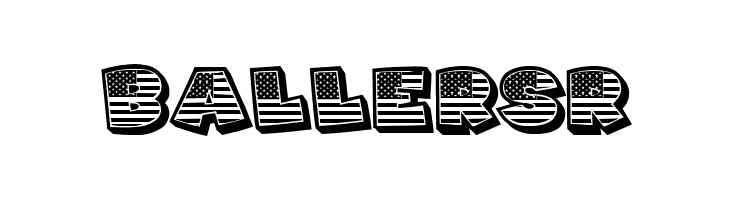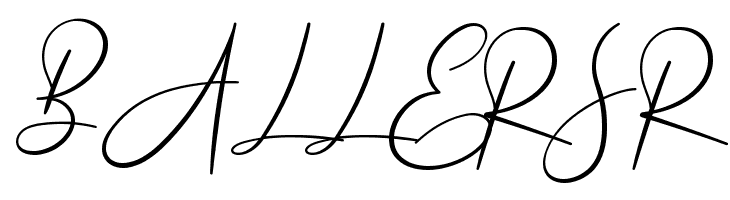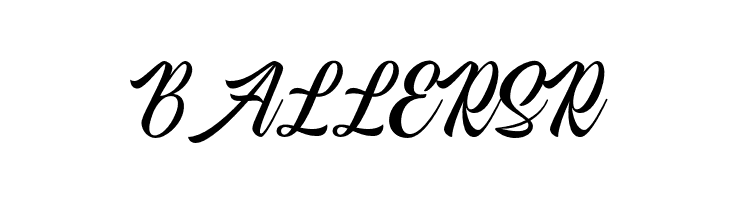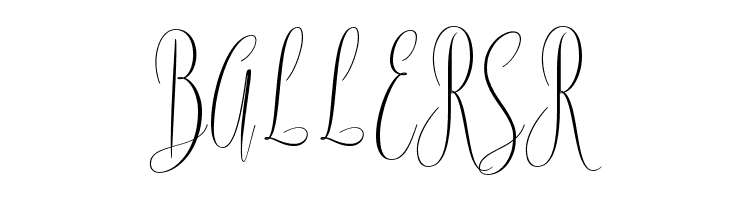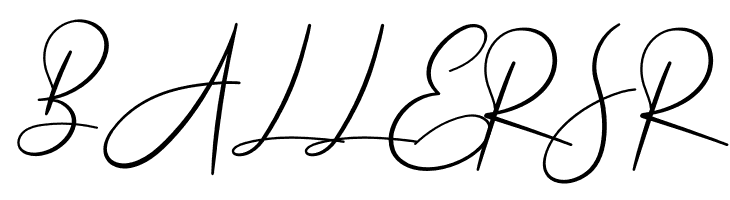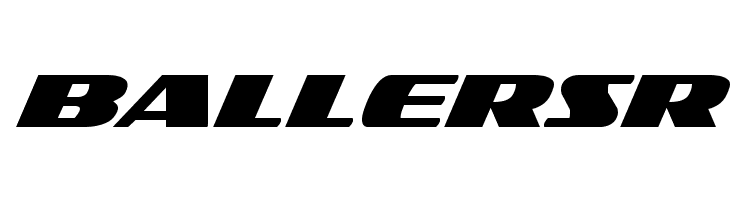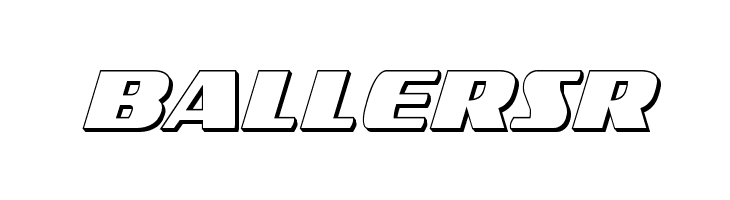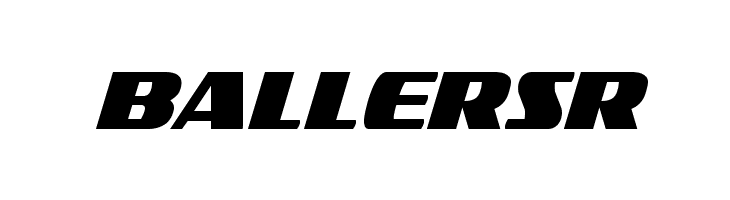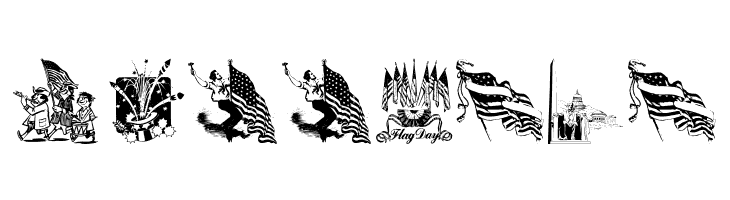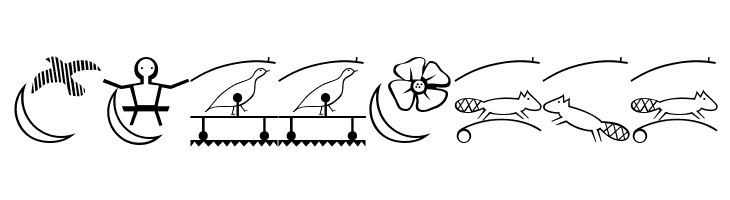
• Americanic
A decorative set of American-themed illustrations instead of a traditional font.
• AmericanIndian
( Fonts by Kenneth Hirst )
A bold, geometric font with a modern, pixelated style.
• AmericanInhabitants
Ornate, pictorial font based on indigenous American symbols.
• americano
( LALATO FONTS )
A playful, handwritten font with a casual and informal style.
• Americano
A playful handwritten font with smooth, fluid strokes and a casual style.
• Americans Classy
A sophisticated and elegant script font with flowing, cursive letterforms.
• Americans Classy
A sophisticated and elegant script font with fluid, flowing letterforms.
• Americans Regular
A bold, decorative font with stars and stripes, evoking American patriotic themes.
• AmericanScript
An elegant script font with graceful curves and intricate details.
• AmericanSignerPersonalUse-Reg
A cursive, elegant font with smooth, flowing strokes and a sophisticated style.
• AmericanStencil
A bold, stencil-style font with geometric shapes and distinct cutouts.
• AmericanTextOpti
A bold, angular blackletter font with a modern twist.
• AmericanTypewriHC
• AmericanWestern
A bold, cursive font with high contrast and dramatic flourishes.
• AmericanYouth
A playful handwritten font with tall, narrow letters and a casual style.
• Americorps
A bold, slanted font with a dynamic and modern style.
• Americorps 3D
A bold, 3D outlined font with a modern, geometric style.
• Americorps 3D Condensed
A bold, 3D, condensed font with a modern geometric design.